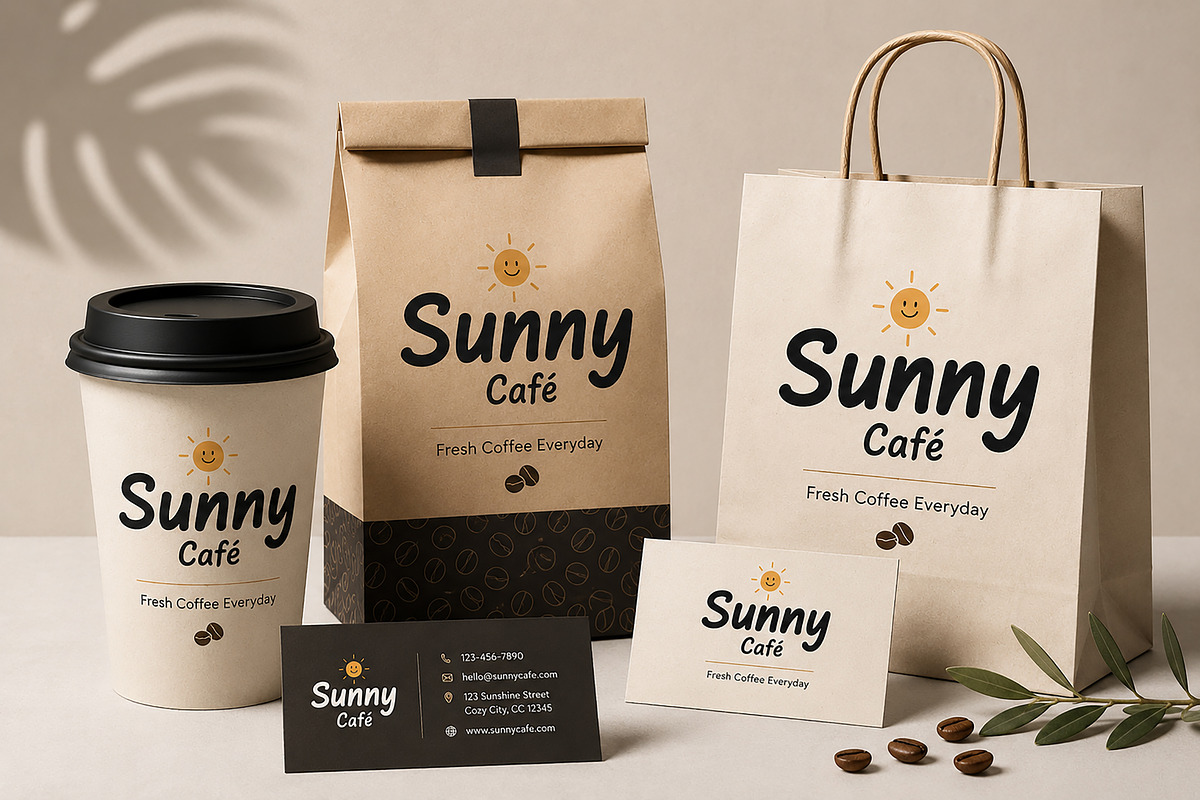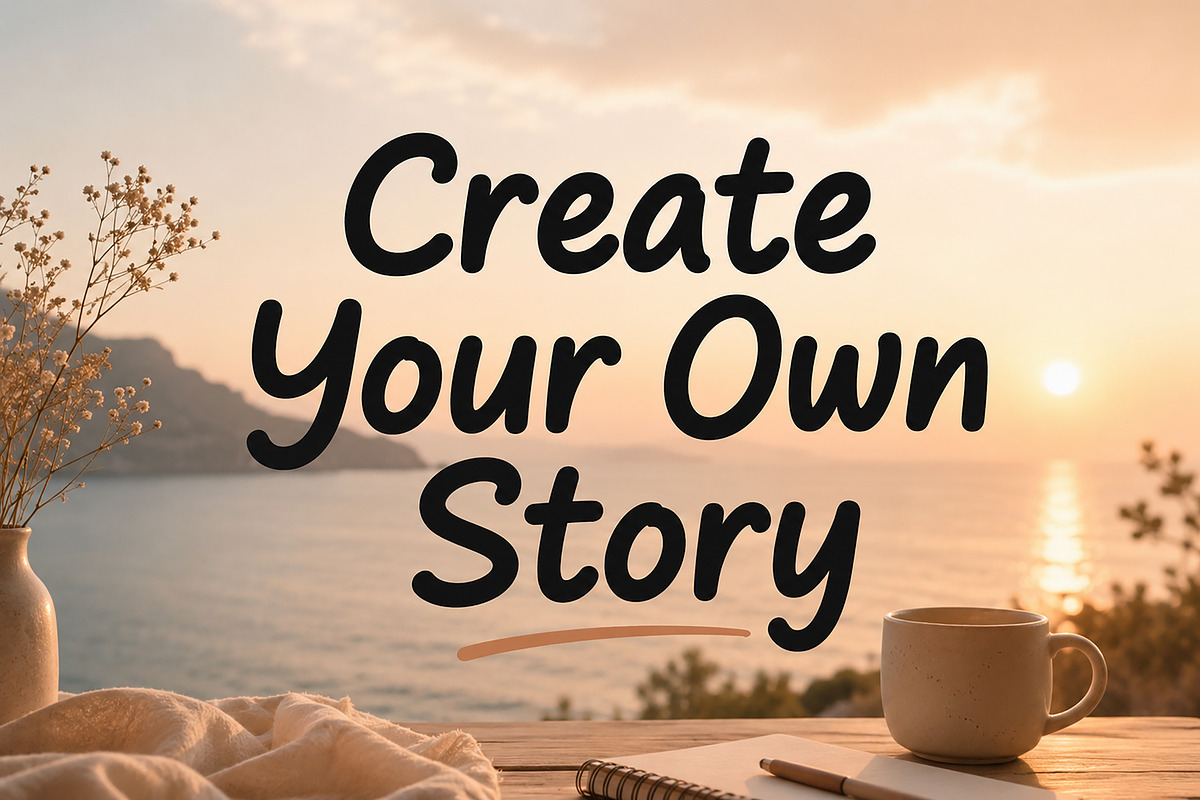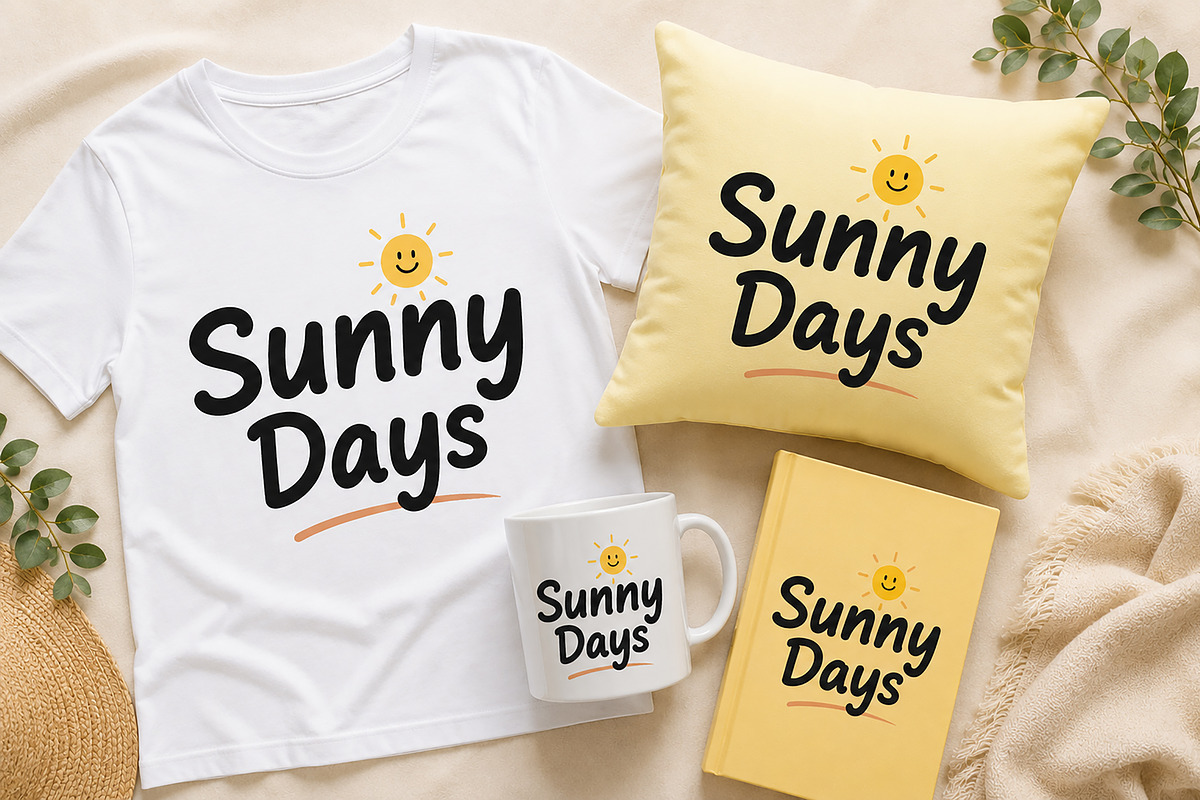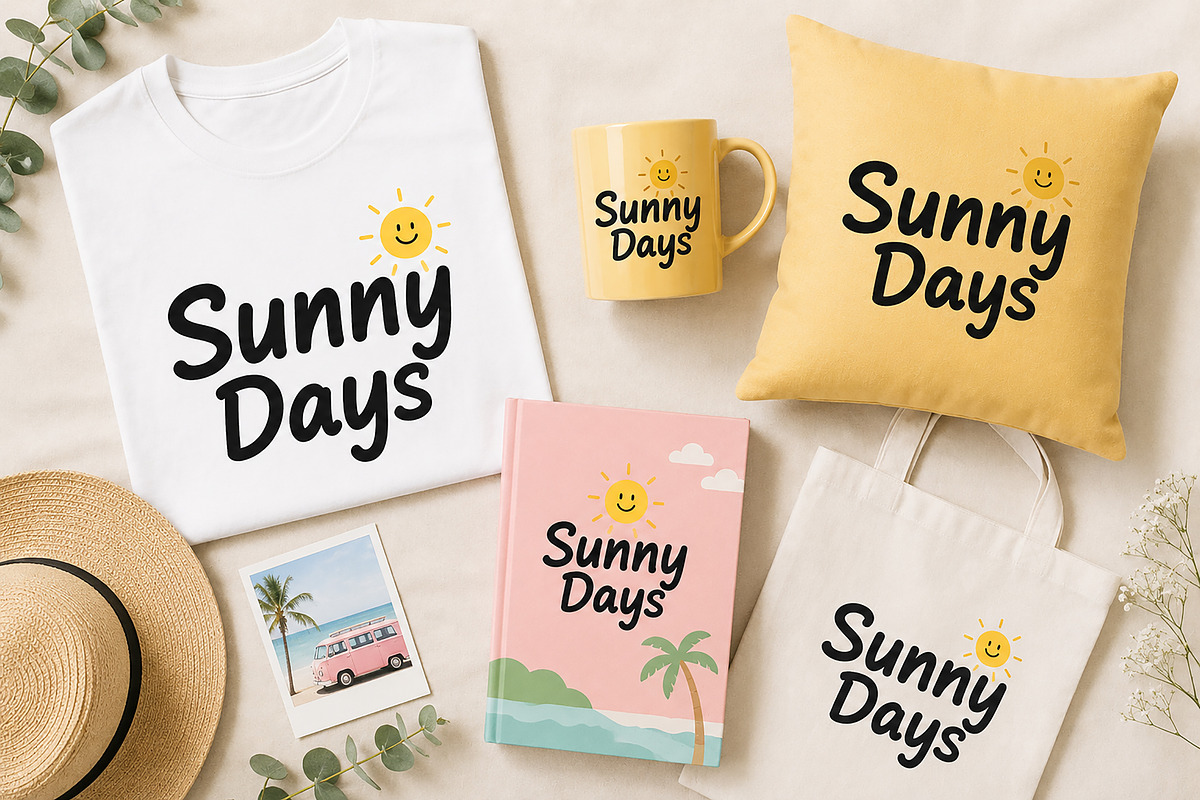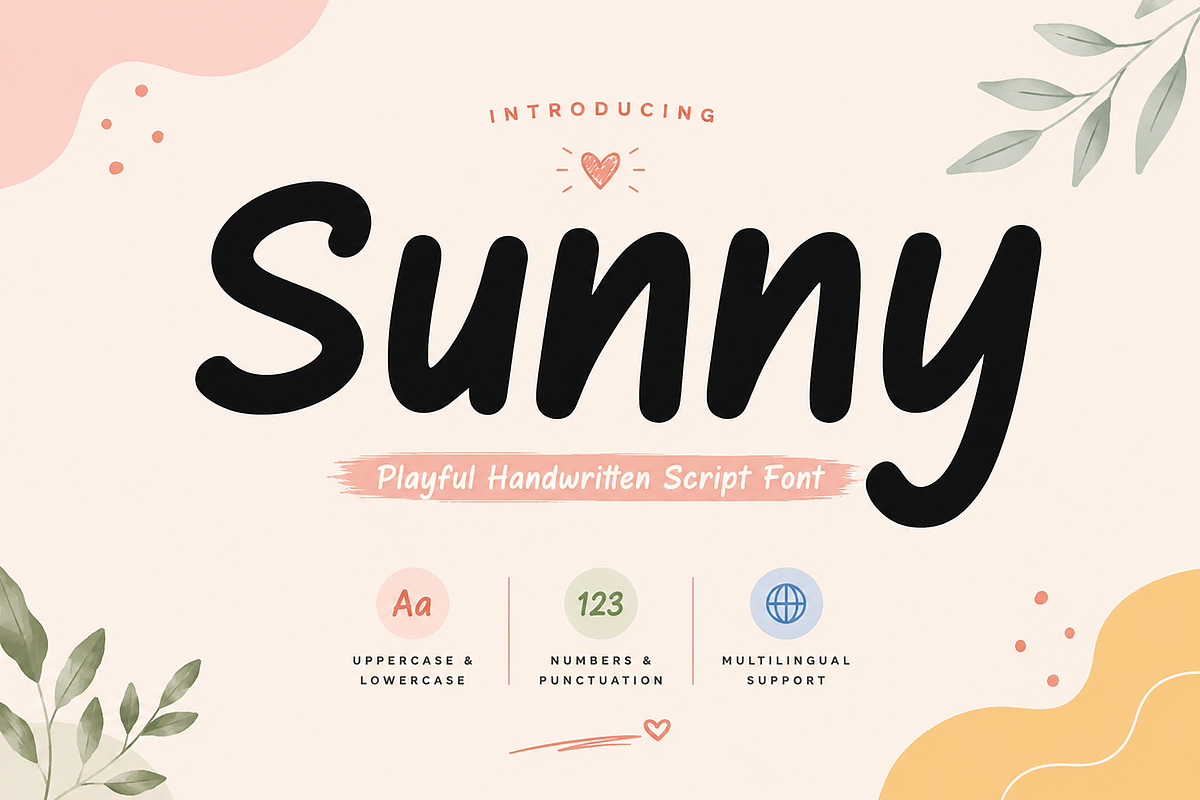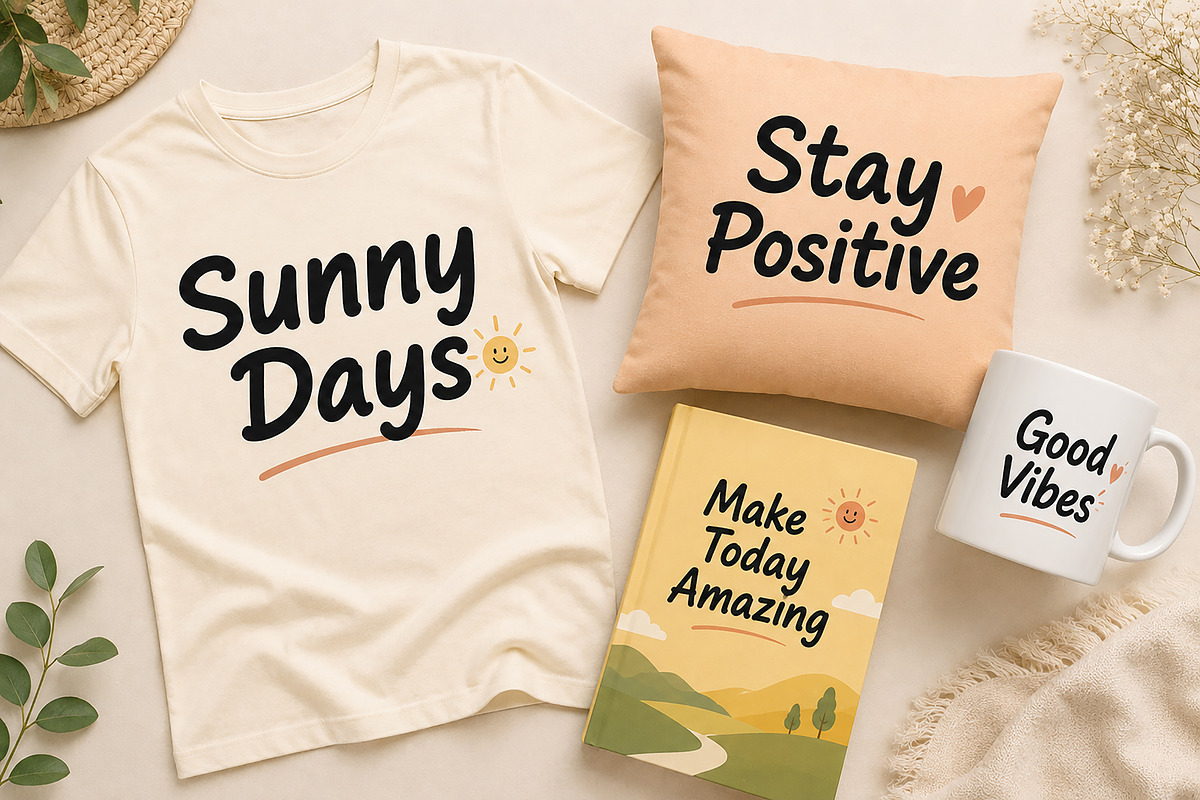
Sunny
# Sunny – Playful Handwritten Script Font
Short Description
Sunny is a playful handwritten script font with a cheerful and friendly personality. Perfect for logos, branding, social media, packaging, invitations, t-shirts, quotes, and creative design projects.
Sunny is a cheerful, friendly, and playful handwritten script font designed to bring warmth and personality to your creative projects. With its smooth curves, bold strokes, and natural handwritten feel, Sunny is perfect for branding, social media graphics, invitations, packaging, children's products, quotes, posters, merchandise, and more.
Whether you're creating a fun logo, eye-catching t-shirt design, cozy café branding, or inspiring social media content, Sunny adds a welcoming and joyful touch to every design.
### Perfect For
* Logo Design
* Branding Projects
* Social Media Posts
* Instagram Quotes
* Product Packaging
* T-Shirt Designs
* Children's Products
* Greeting Cards
* Invitations
* Posters & Flyers
* Book Covers
* Stickers & Labels
* Cricut & Craft Projects
### Font Features
* Uppercase & Lowercase Letters
* Numbers & Punctuation
* Multilingual Support
* Smooth Handwritten Style
* Easy to Read
Bring sunshine, happiness, and creativity to your designs with Sunny — a playful handwritten font made to brighten every project.